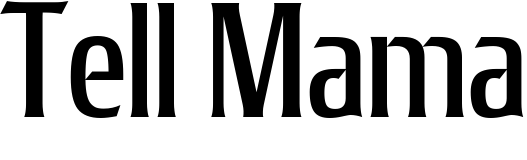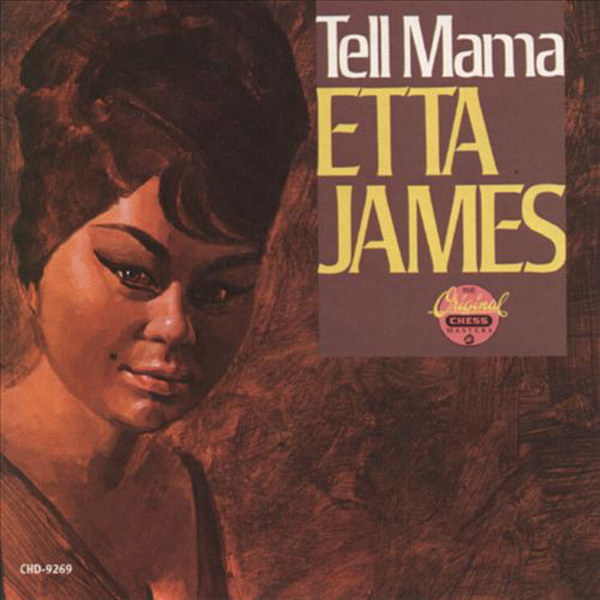
Tell Mama Font
Rocklidge Medium is most likely the font used for both the album title and the singer's name. Rocklidge, created by Steve Jackaman, was influenced by the 1965 VGC typeface Jana. You can view more details about it here.